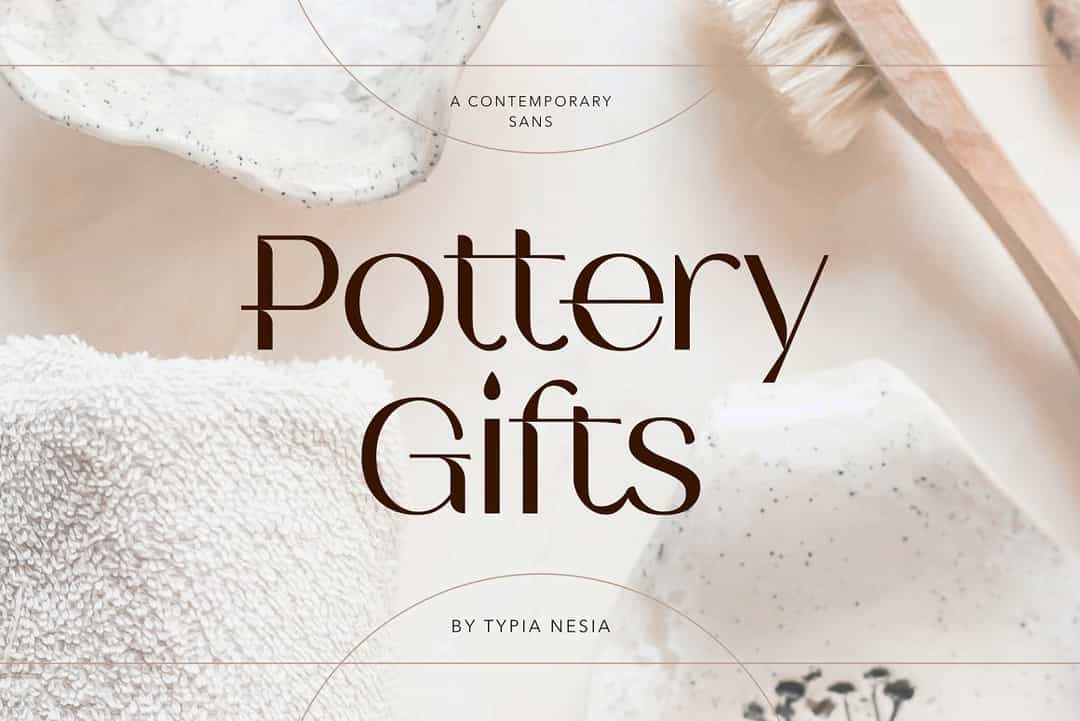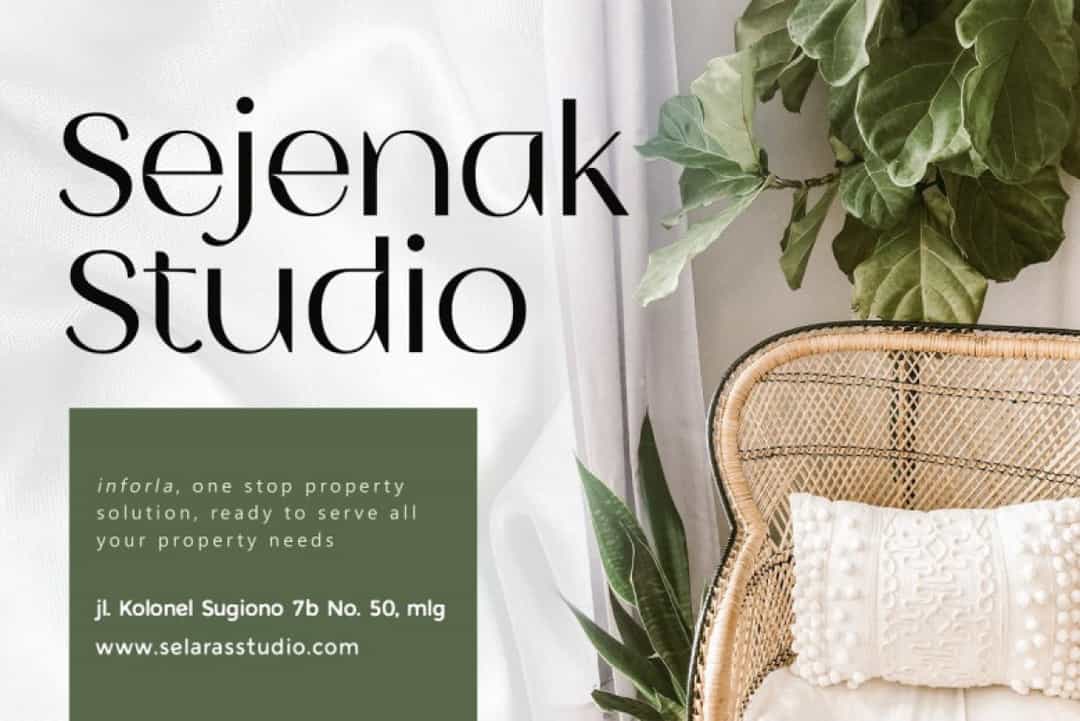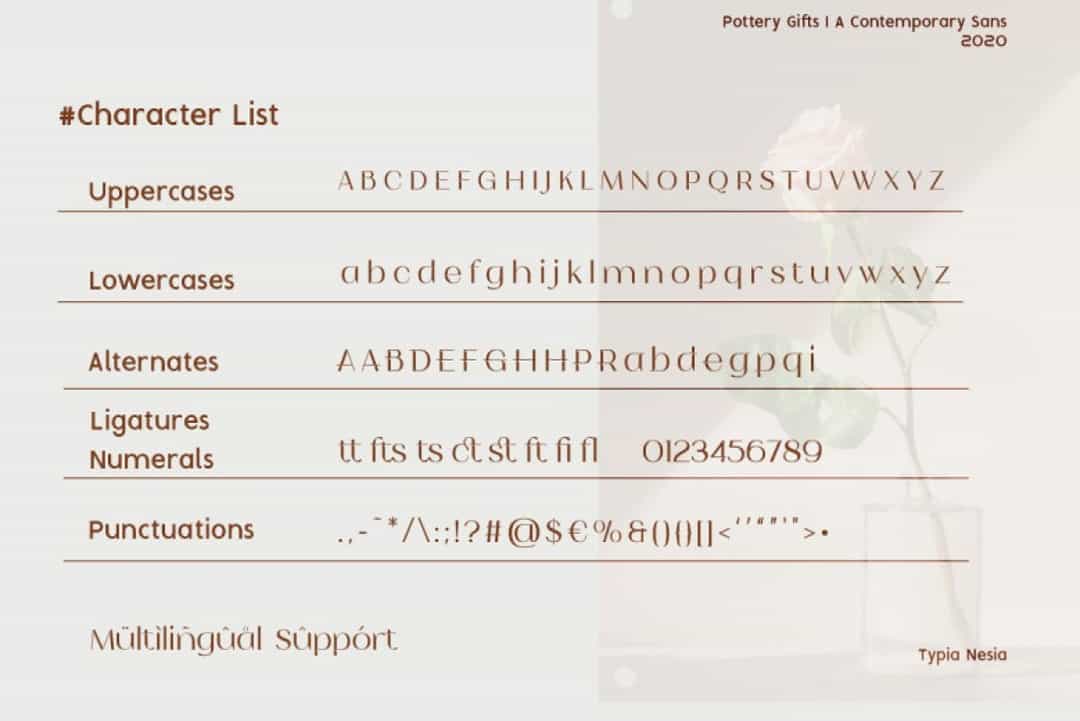
The Pottery Gifts font is elegant and glamorous. A modern sans serif bold font, its bold modern, classy, beautiful display sans font can create stunning typographic effects when mixed with other fonts to form amazing typography styles.